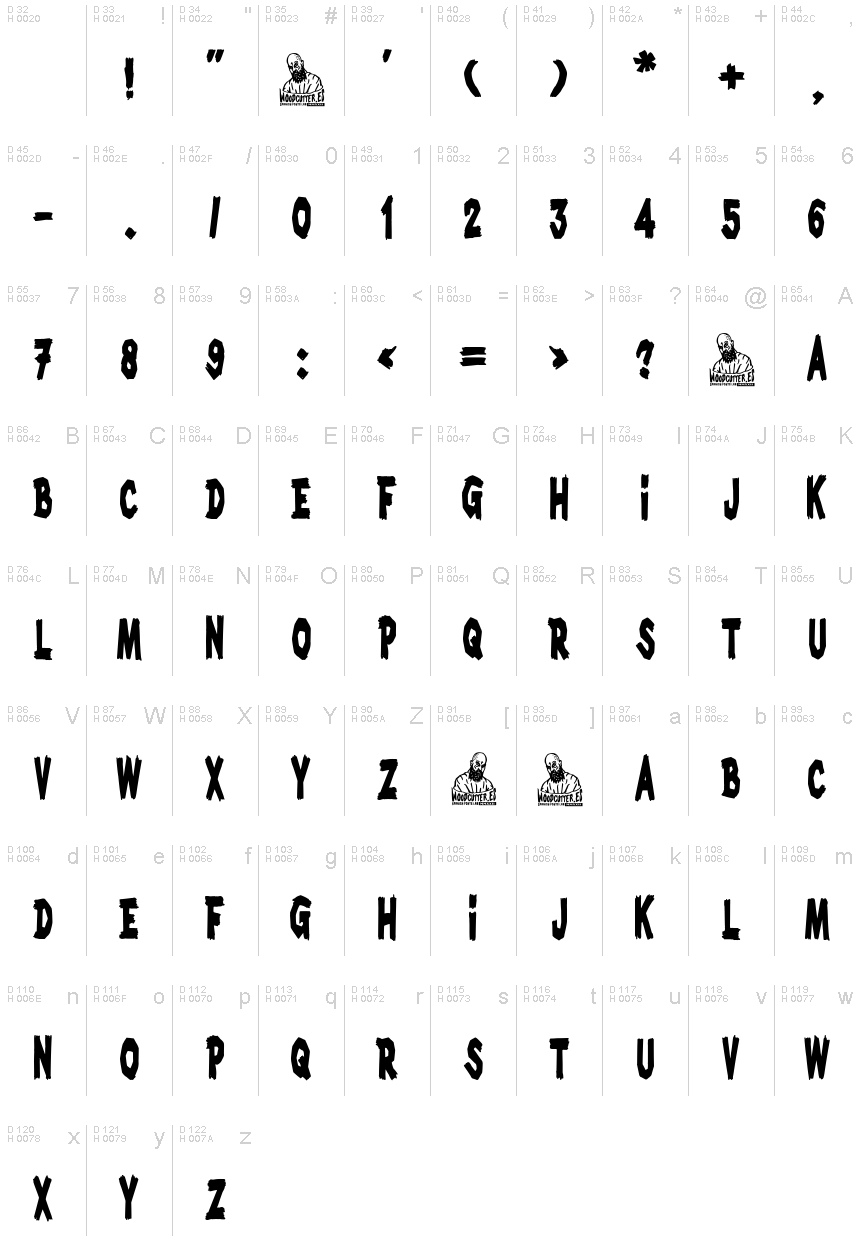
Mystery Lake
Mystery Lake by Woodcutter emerges as a chilling display font that embodies the essence of suspense and the supernatural. Its bold, condensed letters carve out an imposing presence, reminiscent of shadows lurking in the depths of an eerie forest. The style is undeniably scary, with each character designed to send a shiver down your spine, as if whispering tales of forgotten lore and unsolved enigmas.
Crafted for impact, Mystery Lake finds its home in projects that demand a touch of the macabre—perfect for horror movie titles, Halloween event posters, or any thrilling branding endeavor that seeks to leave an unsettling yet captivating mark on its audience.